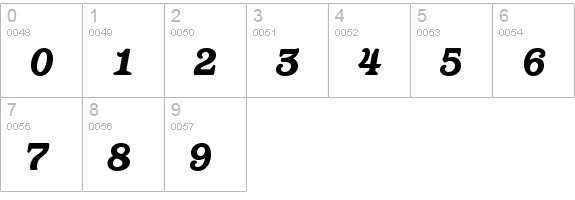
BarcelonaEF-HeavyItalic is a stunning and modern typeface that exudes sophistication and elegance. Its bold and slanted design makes a bold statement, perfect for headlines, titles, and branding projects. The unique combination of heavy weight and italic style adds a touch of drama to any design. This font is not only visually striking but also highly versatile, suitable for a wide range of design applications. Whether you're designing a poster, logo, or website, BarcelonaEF-HeavyItalic will make your text stand out and grab attention. The best part? This font is available for free download at FontsMarket.com, making it accessible to designers of all levels. Don't miss out on the opportunity to add BarcelonaEF-HeavyItalic to your font collection and elevate your designs with its bold and stylish presence.